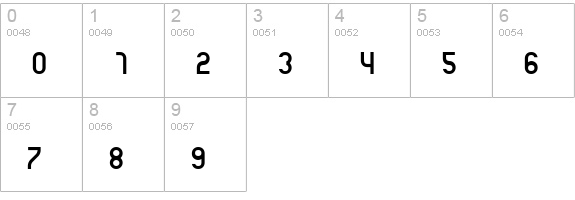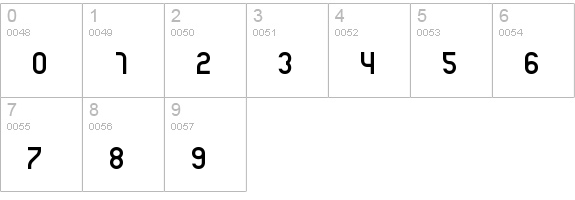
Mass Font Details
Introducing Mass, a captivating font that combines elegance with a touch of modernity. This versatile typeface is the perfect choice for designers, writers, and creatives seeking to make a lasting impression. With its sleek lines and balanced proportions, Mass effortlessly captures attention and conveys a sense of sophistication. But what truly sets Mass apart is that it is not only visually stunning, but also freely available to download. That's right, this exceptional font can be yours without any cost. Thanks to FontsMarket.com, you can easily access Mass and enhance your projects with its distinctive charm. Whether you're designing a logo, creating a website, or crafting eye-catching graphics, Mass provides a wide range of possibilities. Its clean and legible characters ensure readability across various mediums, making it a reliable choice for both digital and print applications. The versatility of Mass extends beyond its aesthetic appeal. With multiple weights and styles to choose from, you have the freedom to experiment and customize your designs to suit your unique vision. Whether you prefer a bold statement or a subtle elegance, Mass has got you covered. Downloading Mass from FontsMarket.com is a breeze. Simply visit the website, locate the font, and with just a few clicks, it will be ready to elevate your creative endeavors. The user-friendly interface ensures a seamless experience, allowing you to focus on what you do best – bringing your ideas to life. Don't miss out on the opportunity to add Mass to your font collection. Its captivating beauty, combined with its free availability, makes it a must-have for any designer or creative professional. Upgrade your projects today and let Mass take your designs to new heights of excellence.